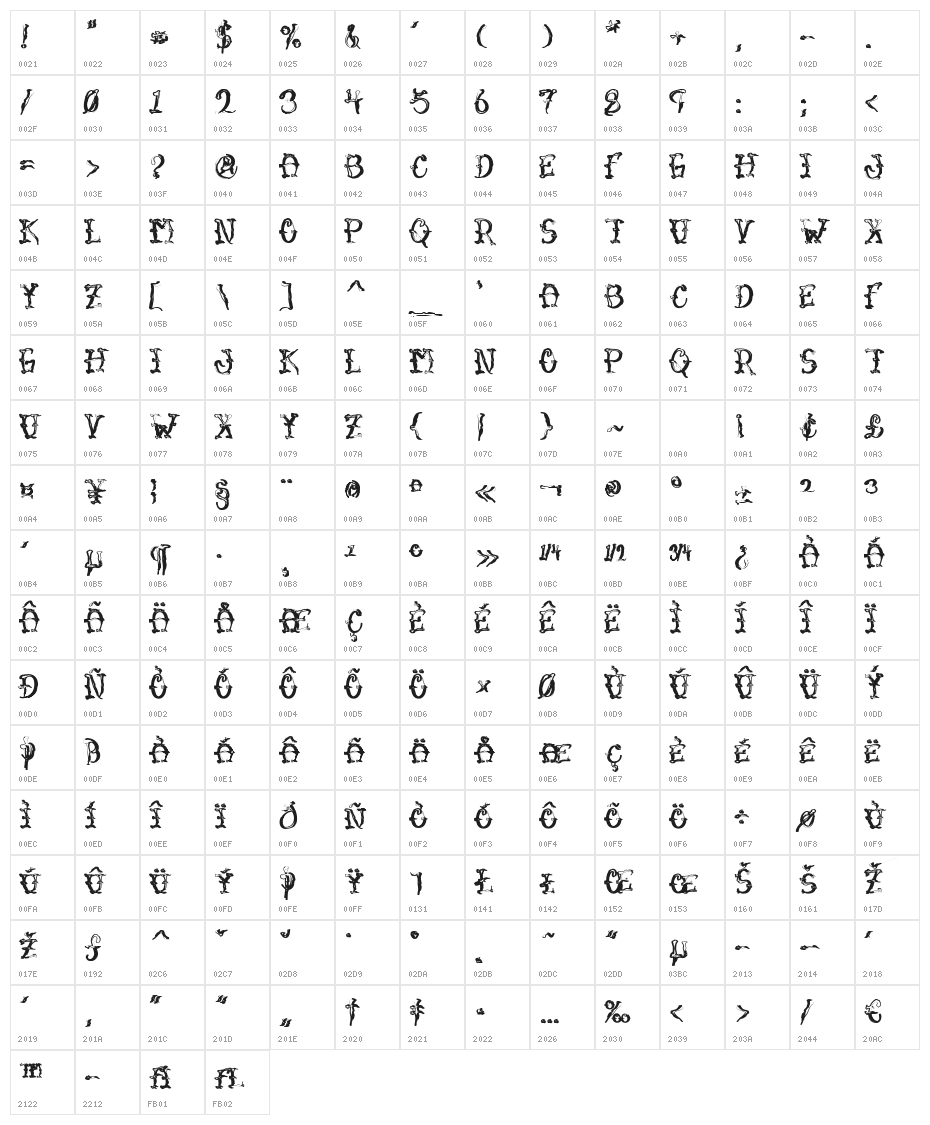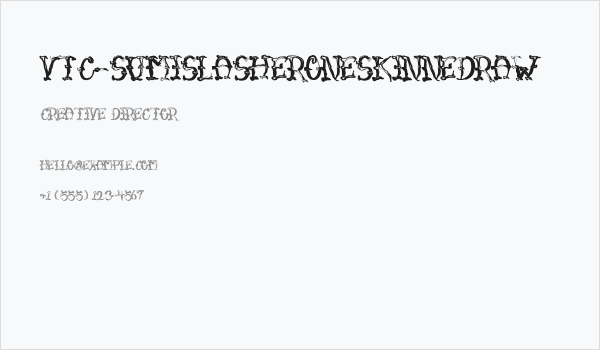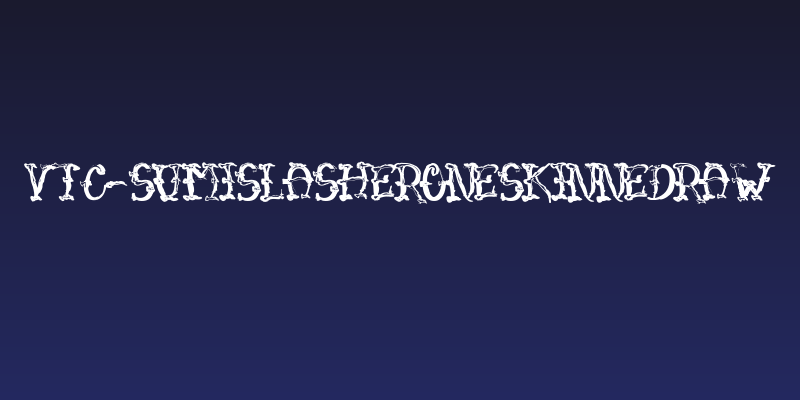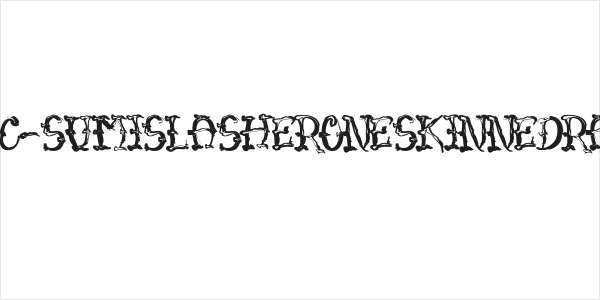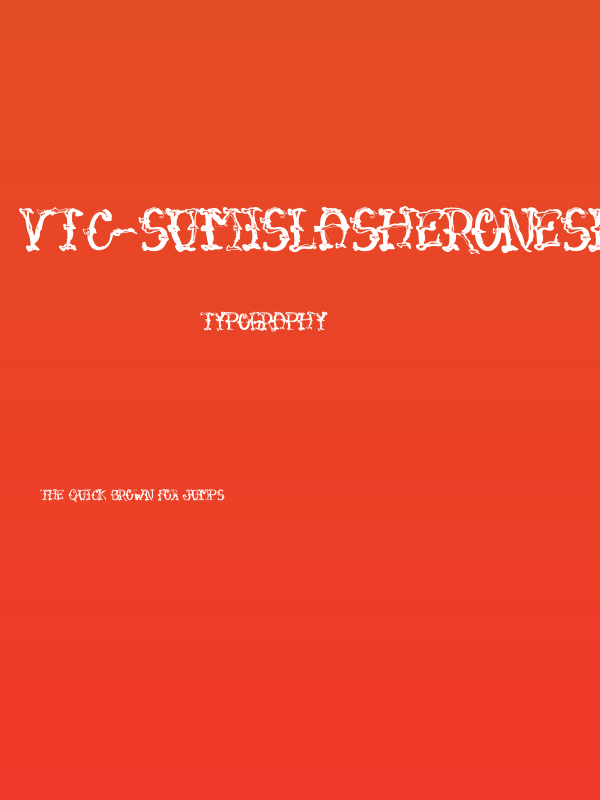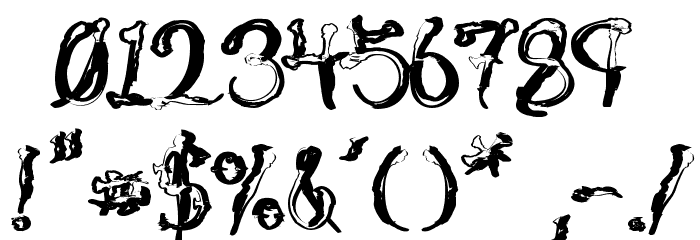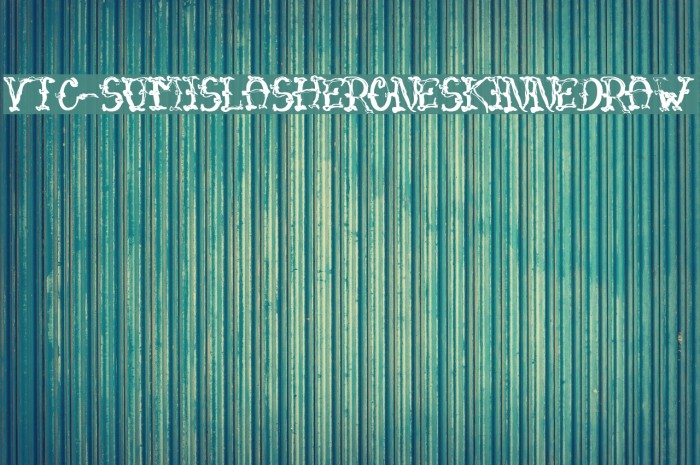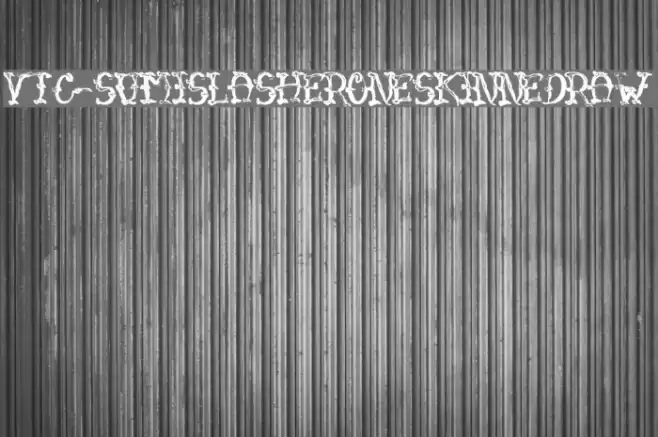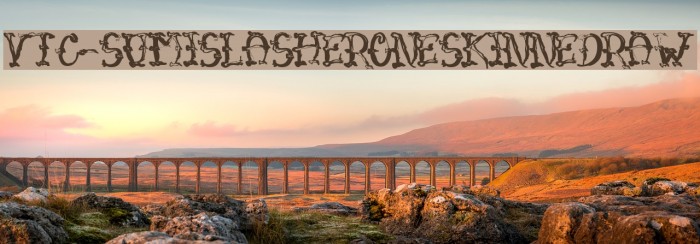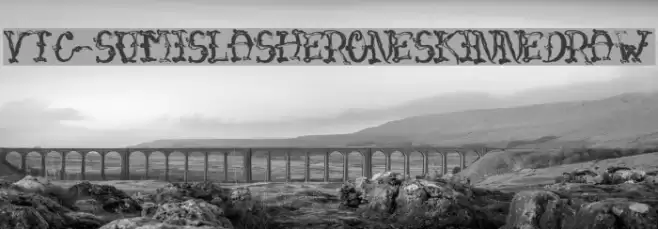
VTC-SumiSlasherOneSkinnedRaw Font
VTC-SumiSlasherOneSkinnedRaw Description
This font presents a highly decorative and artistic style, characterized by its intricate and chaotic design. Each letter is uniquely crafted with swirling, splattered elements that give it a raw and edgy appearance. The strokes vary in thickness, adding to the dynamic and unpredictable nature of the font. The overall look is reminiscent of graffiti or abstract art, making it stand out with its bold and unconventional aesthetic. The characters are distinct yet maintain a cohesive theme throughout, with a sense of movement and energy captured in each glyph. This font is not only visually striking but also evokes a sense of creativity and rebellion.
| Use Case | Logos, Posters, Artistic projects |
| Proposed Projects | Ideal for projects requiring a bold, artistic touch such as album covers, street art posters, or edgy branding materials. |